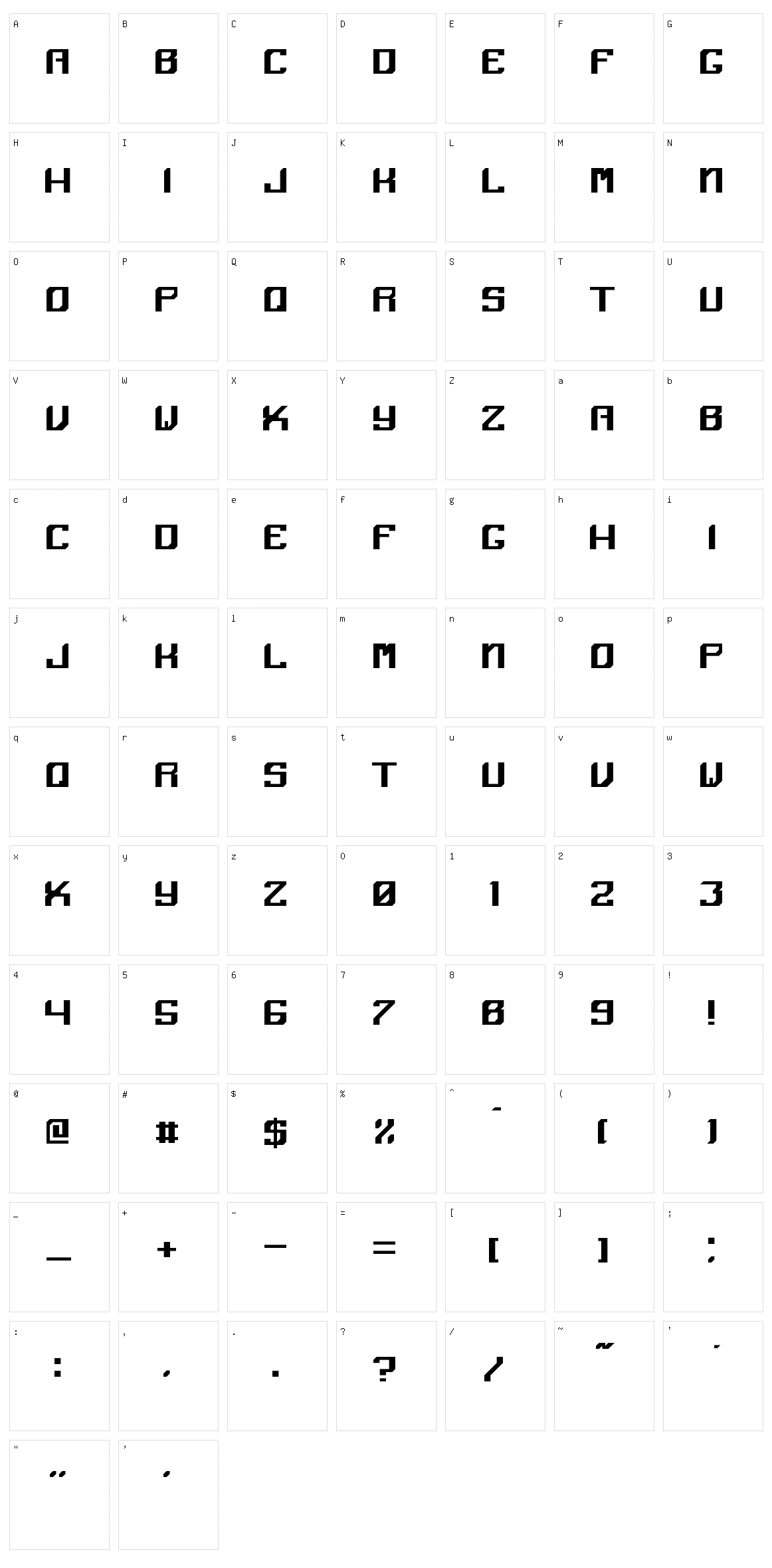
Angular
Designed by: Staffan Vilcans
Angular font
Made by Staffan Vilcans.
The font was made with the ide to only use 90 degree angles and one angle 45 degrees to the right.